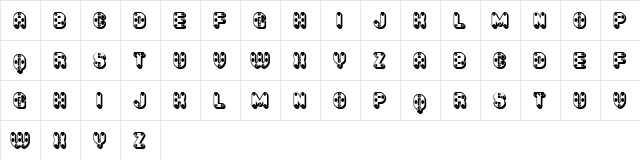
Furious Ride Abstract Regular
Design Context for Furious Ride Abstract Typeface
Furious Ride Abstract is a composed and adaptable typeface that performs quietly and consistently across a wide range of design contexts.